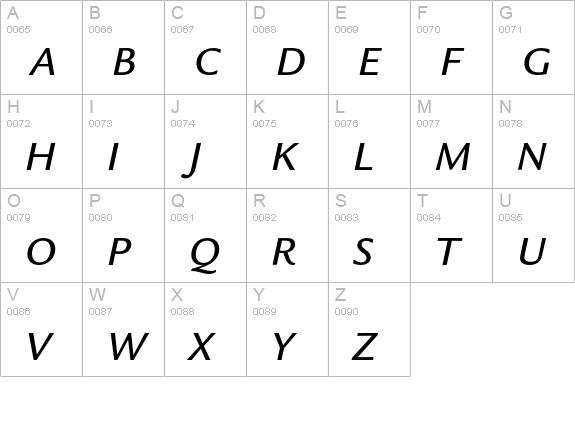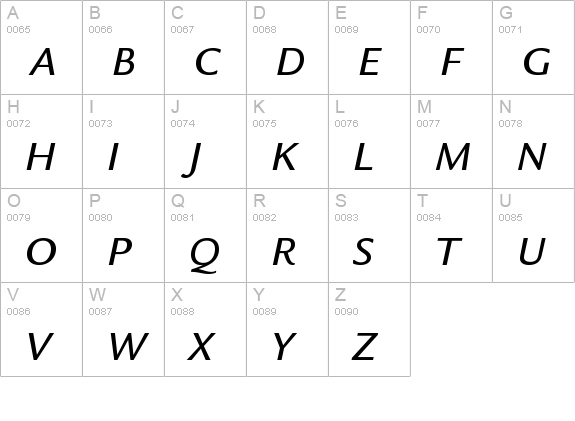
LegacySansEF-MediumItalic Font Details
LegacySansEF-MediumItalic is a beautifully crafted font that exudes elegance and sophistication. With its perfectly balanced curves and stylish slant, this font adds a touch of modernity to any design project. The medium weight of the font strikes a perfect balance between boldness and subtlety, making it versatile and suitable for a wide range of applications. What sets LegacySansEF-MediumItalic apart from other fonts is that it is not only visually appealing but also freely available to download. With just a few clicks, you can access this font at FontsMarket.com, a trusted platform for high-quality fonts. This means that you can use LegacySansEF-MediumItalic in your personal and commercial projects, without any restrictions or limitations. This font is perfect for creating eye-catching headlines, elegant logos, stylish invitations, and much more. Its medium italic style adds a touch of flair and sophistication to any project, making it stand out from the crowd. Whether you're designing a website, crafting a brochure, or creating social media graphics, LegacySansEF-MediumItalic will elevate your designs to new heights. The attention to detail in LegacySansEF-MediumItalic is truly remarkable. Each character is meticulously designed, ensuring perfect legibility and readability. The smooth curves and flowing lines create a harmonious rhythm, making this font a pleasure to read and work with. In addition to its aesthetic appeal, LegacySansEF-MediumItalic also offers excellent versatility. It pairs well with both serif and sans-serif fonts, allowing you to create dynamic and visually engaging designs. Whether you want to create a sophisticated brand identity or add an elegant touch to your editorial layouts, this font has got you covered. Don't miss out on the opportunity to enhance your design projects with LegacySansEF-MediumItalic. Visit FontsMarket.com today and download this beautiful font for free. Let your creativity soar and bring your designs to life with this stunning typeface.